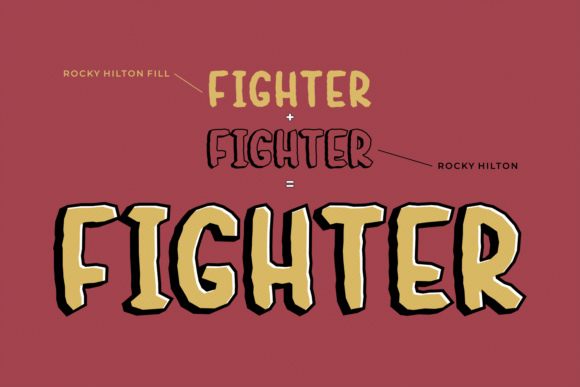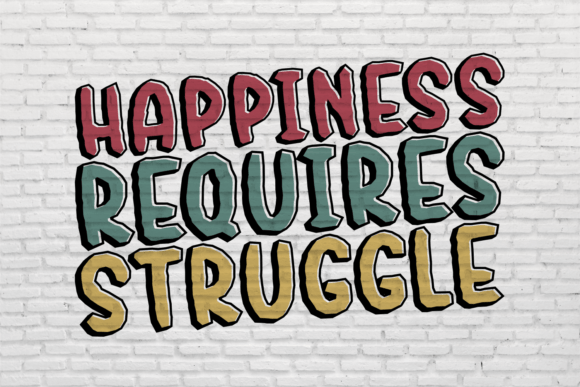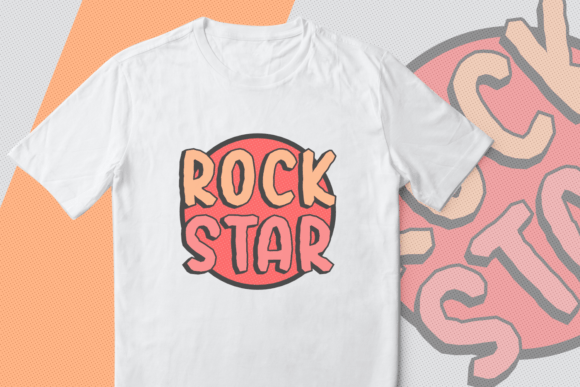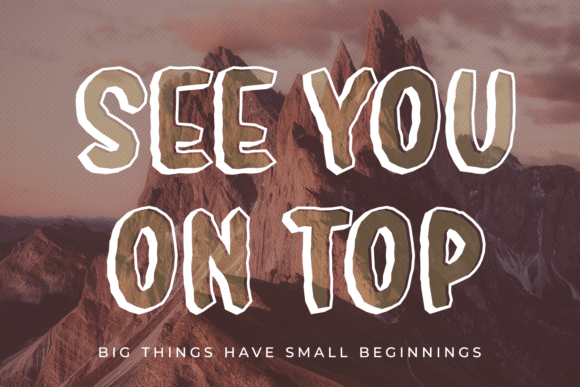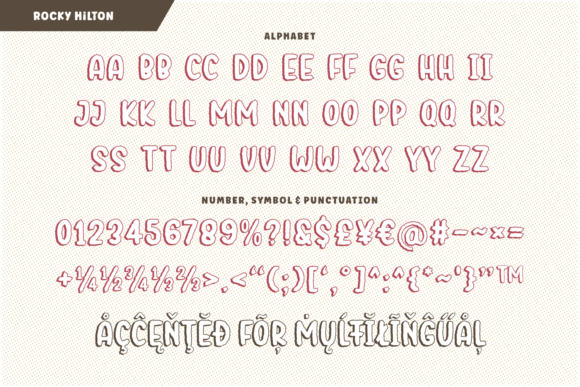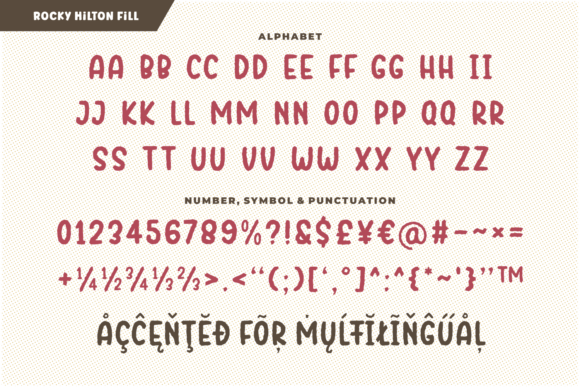
Introduction to Rocky Hilton Font
Rocky Hilton is a tremendous and layered display font that is a bold and dynamic addition to any project.
Its multi-layered design creates a sense of depth and dimension, while its bold and strong shapes demand attention Perfect for branding, advertising, and any project that requires a font that is both powerful and creative.
Key Features of Rocky Hilton Font